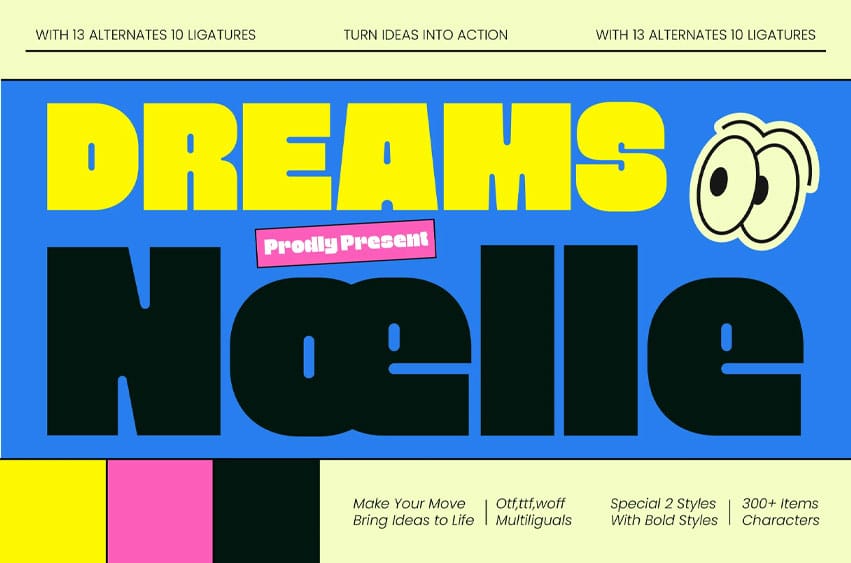
Dreams Noelle Font Elevate your visual identity with a typeface that demands attention. Dreams Noelle – Bold Display Sans is a high-impact, ultra-modern display font designed to dominate any layout with its chunky, geometric construction. Providing a powerful commanding presence, it is the perfect choice for designers looking to inject energy and bold confidence into their work. This typeface strikes a flawless balance between contemporary playfulness and structural strength, ensuring your headlines are impossible to overlook.
Bridge the gap between modern aesthetics and global functional excellence. With its extensive multilingual support, Dreams Noelle – Bold Display Sans adapts seamlessly across global markets, making it incredibly versatile for international projects. Featuring over 300+ characters, it ensures that your message remains consistent and professional regardless of linguistic requirements. This robust toolkit allows businesses to communicate with clarity and personality on a world stage.